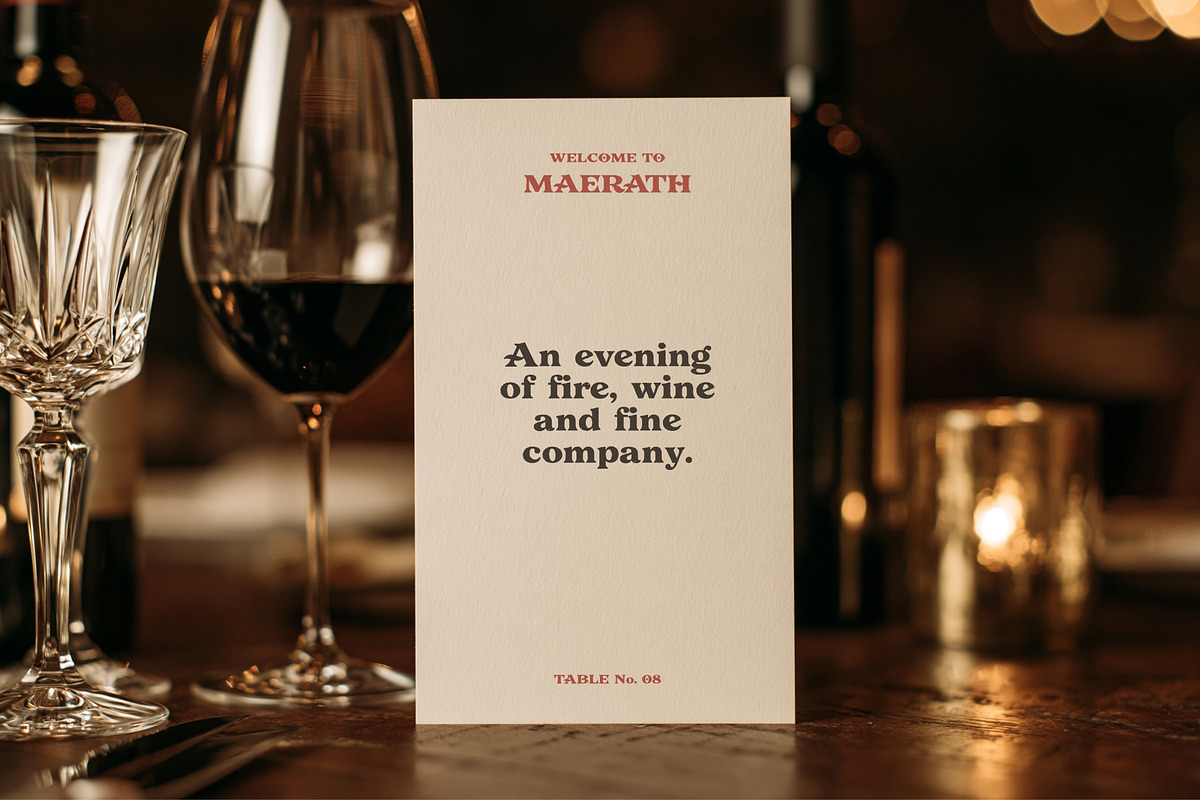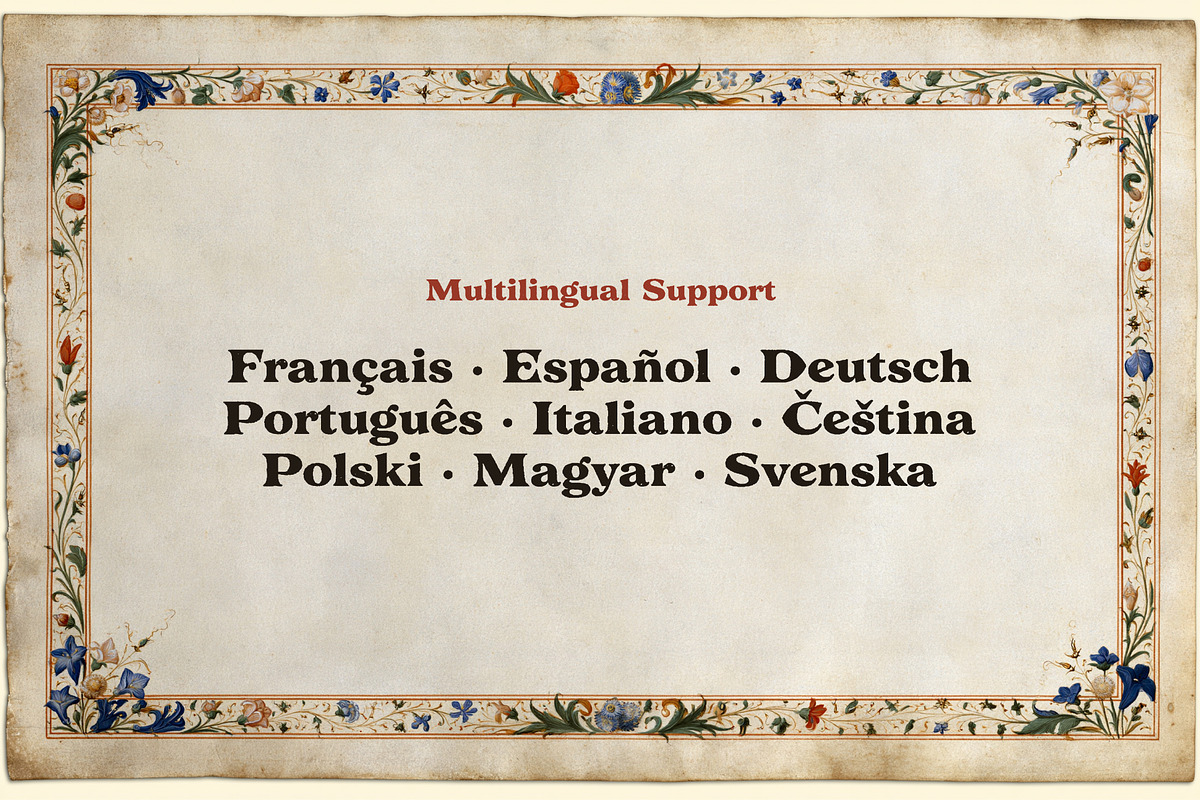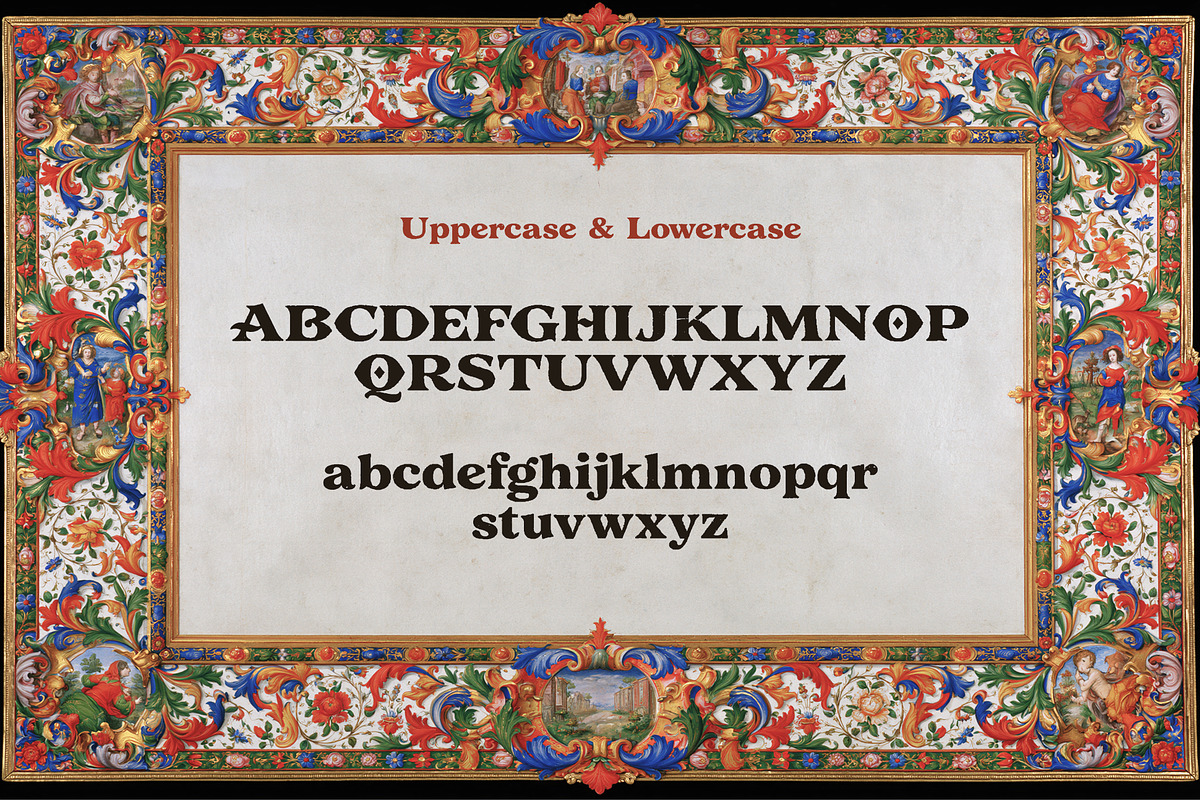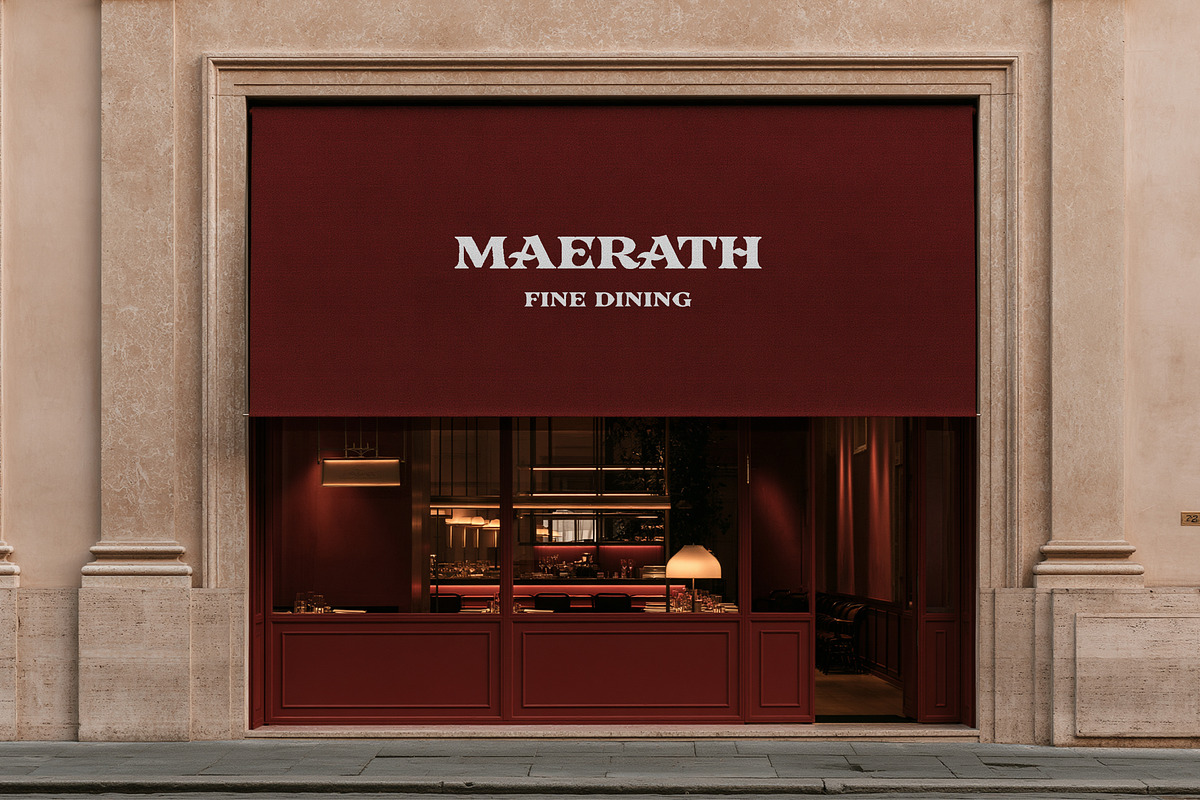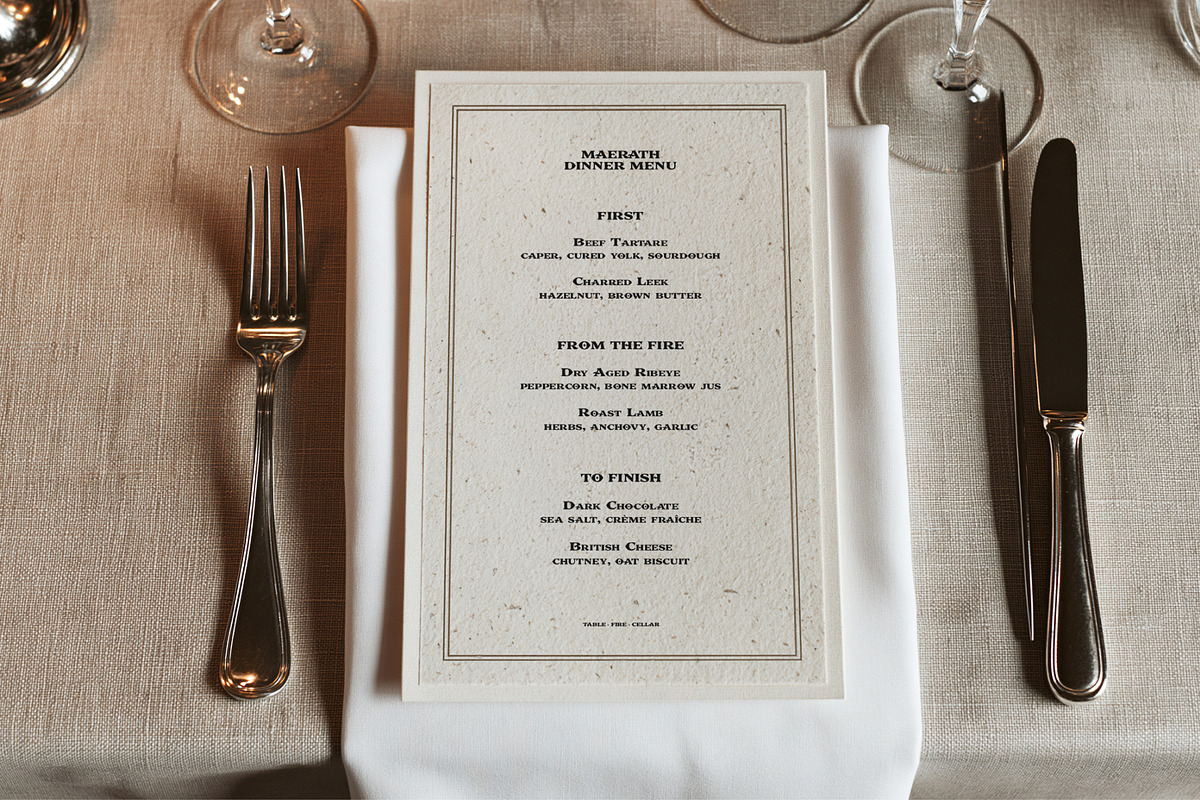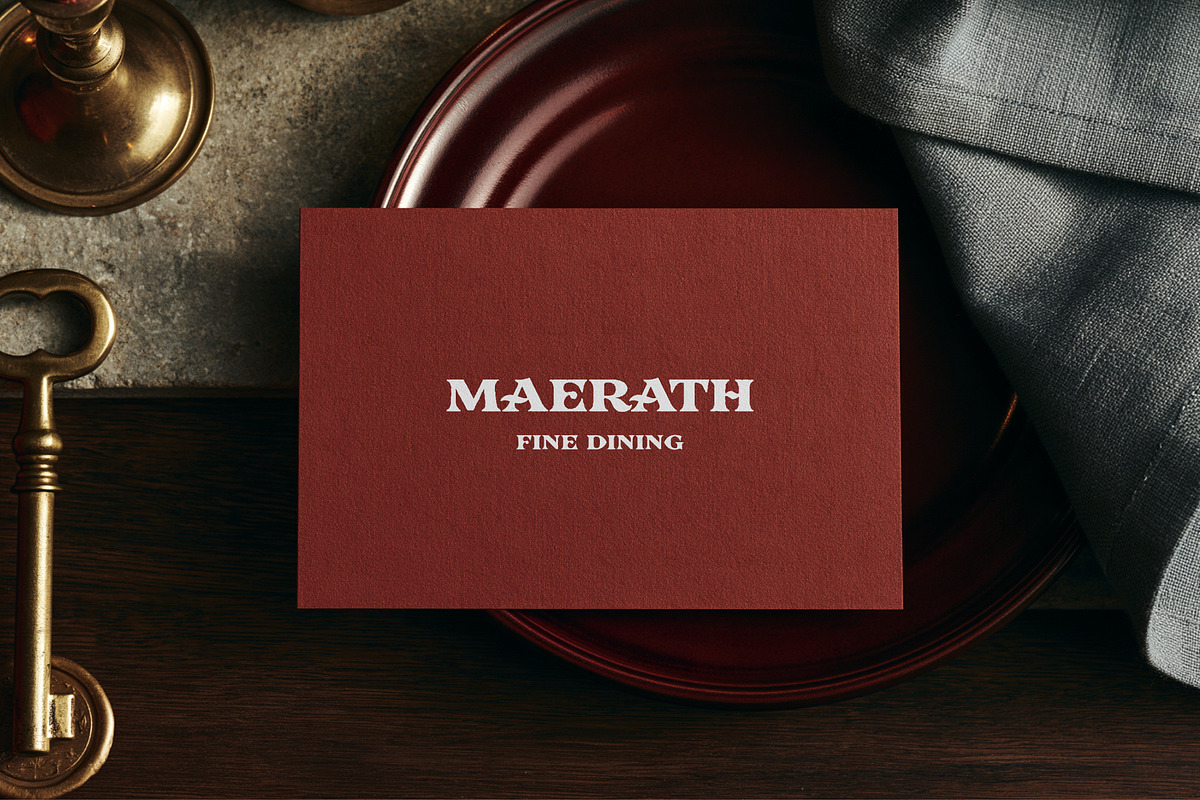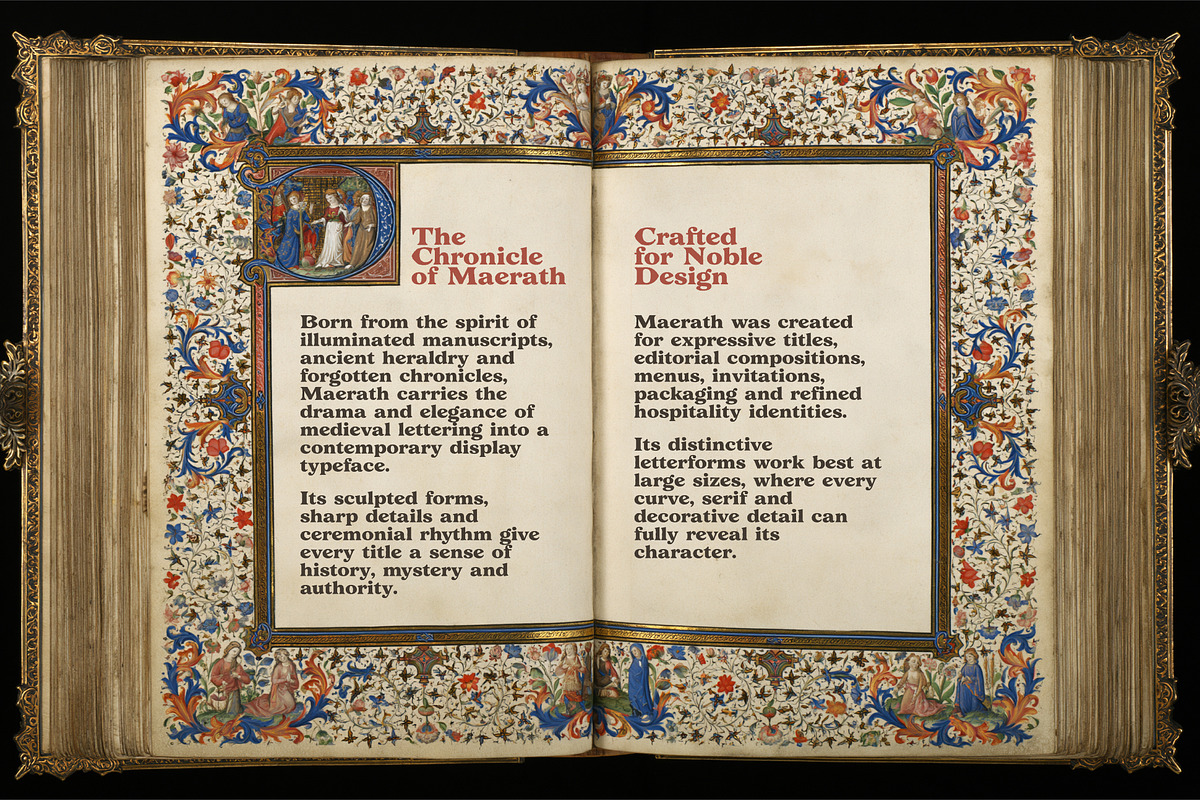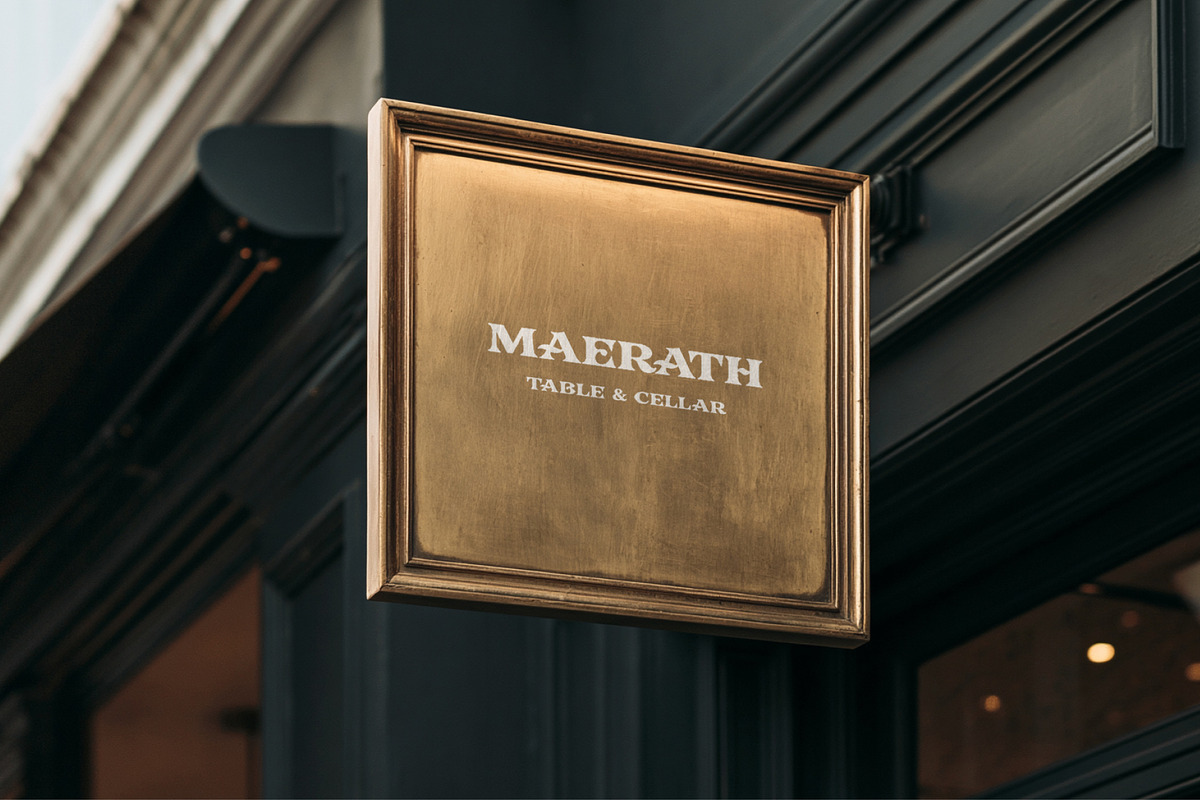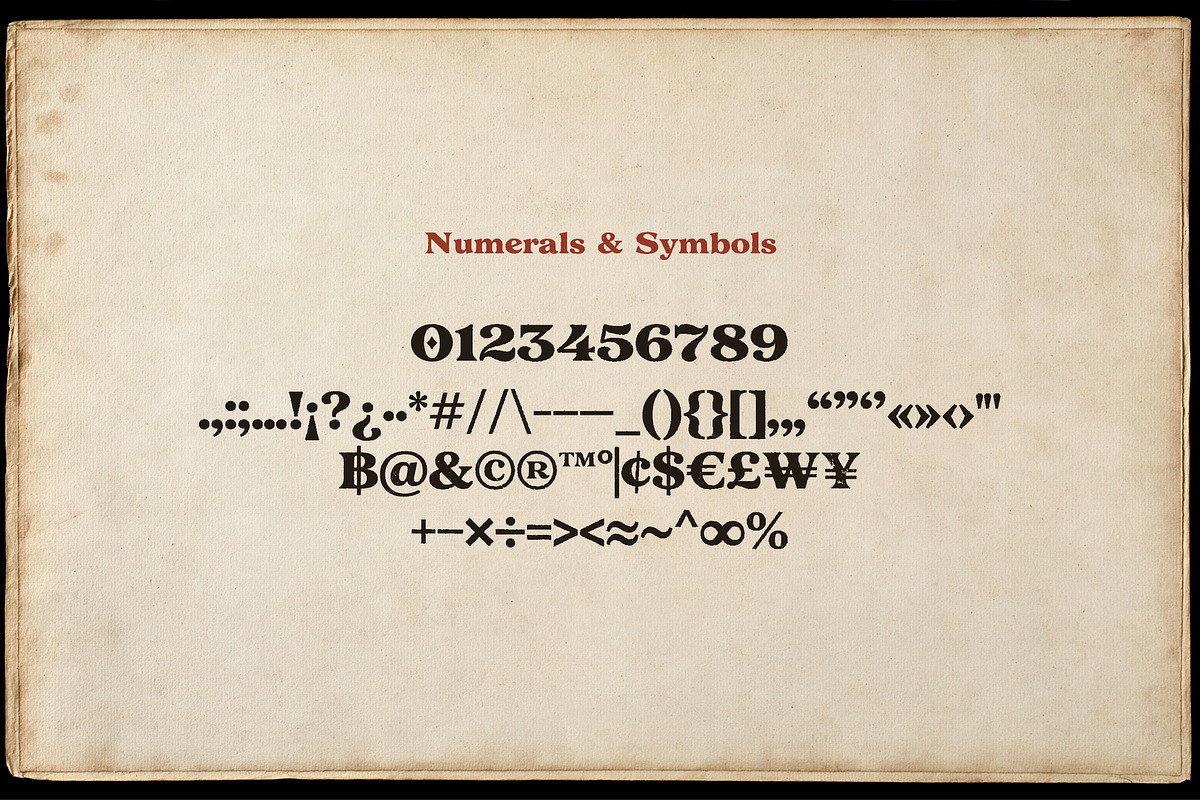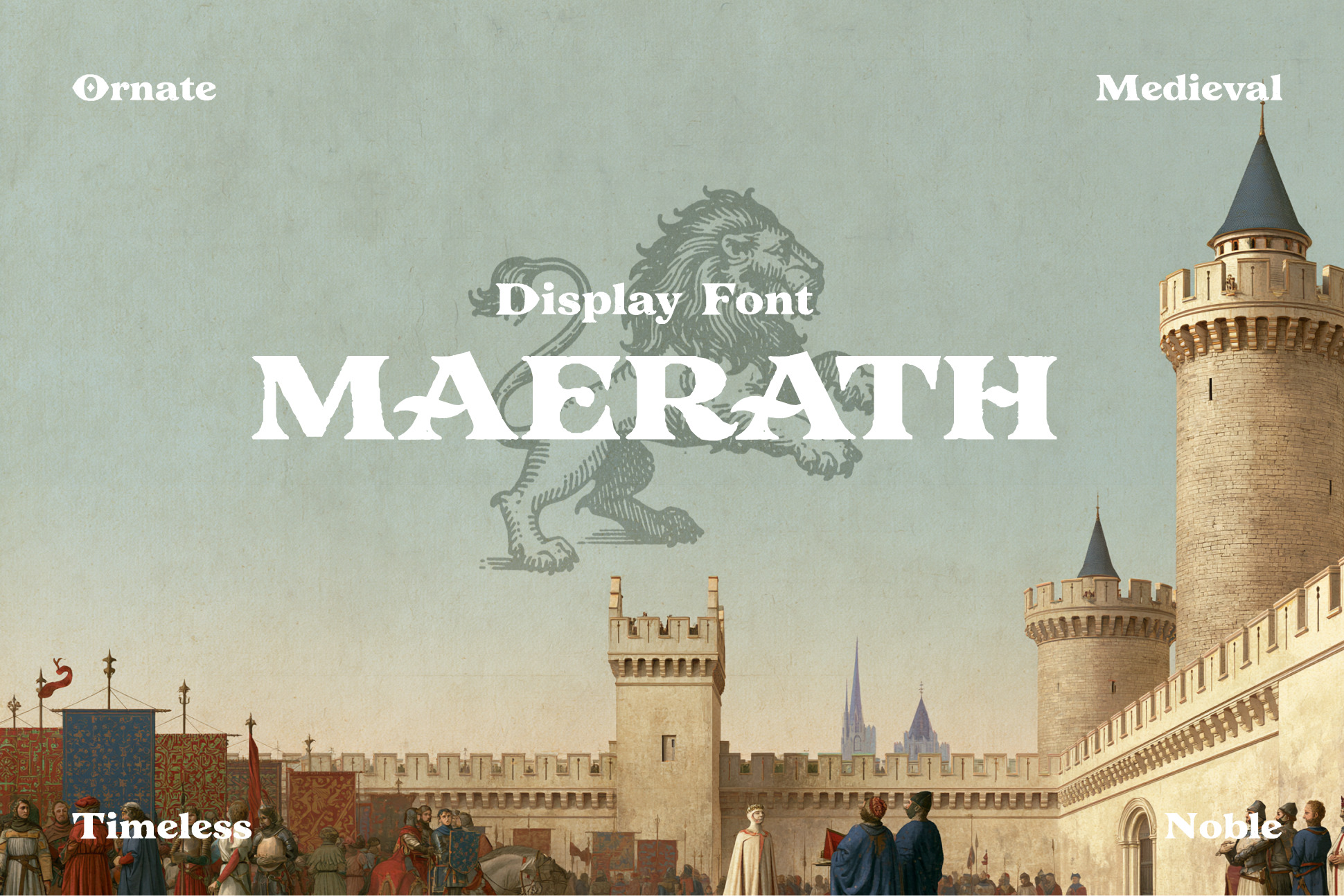
Maerath Medieval Display Font
Maerath is a distinctive display typeface inspired by medieval manuscripts, heraldic lettering and old European book typography. Sculpted serifs, dramatic proportions and unusual letterforms give it a noble, mysterious and timeless character.
Designed for expressive headlines, restaurant and hospitality branding, wine labels, menus, book covers, invitations, editorial layouts, packaging and projects that need a strong historical atmosphere.
Uppercase and lowercase Latin alphabet
Extended Latin characters and diacritics
Multilingual Latin support
Numerals 0–9
Standard and extended punctuation
Currency symbols
Mathematical and common symbols
Quotation marks and brackets
Optimized for large display typography
Maerath works especially well at large sizes, where its sculpted forms and distinctive details can fully express their character.